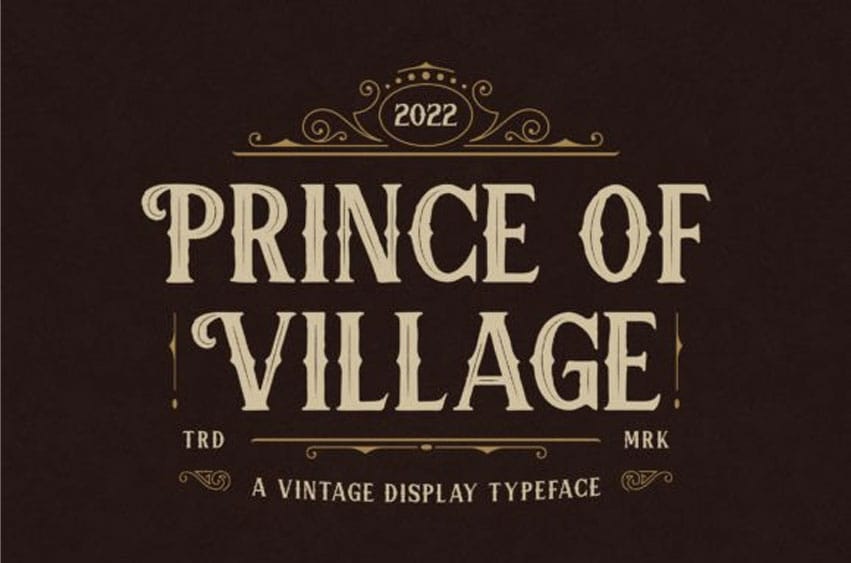
Prince of Village Font is a vintage serif font.
It can be used for various purposes such as logos, headings, coffee shops, vintage restaurants, letterhead, signage, labels, news, posters, badges, and so much more.